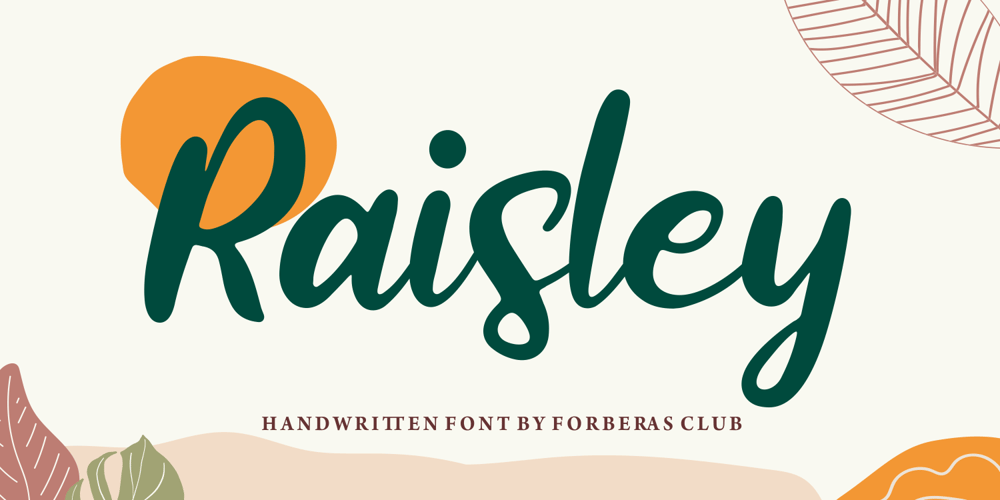
Raisley Font Family was designed by ANGGI HERMAWAN and published by Forberas Club. Raisley contains 1 styles and family package options. Raisley si handwritten font. Nice to application for wedding party, invitation, memorable moment, love story and many more with special moment.